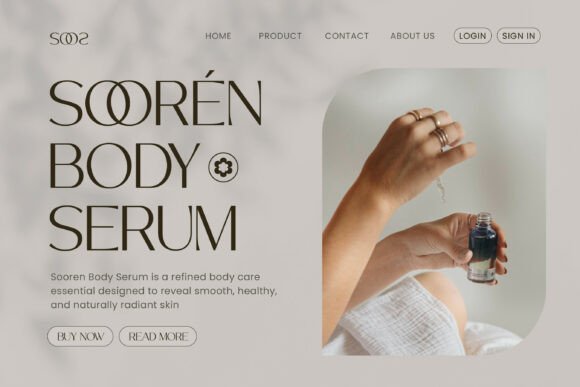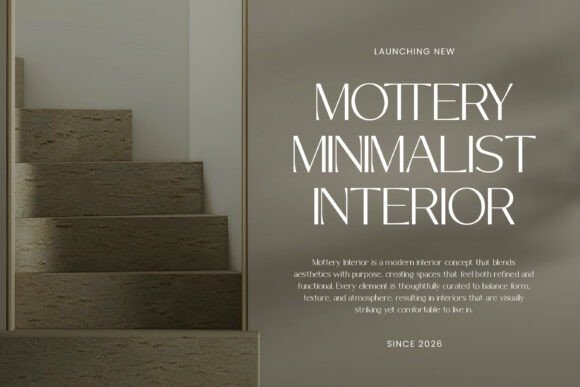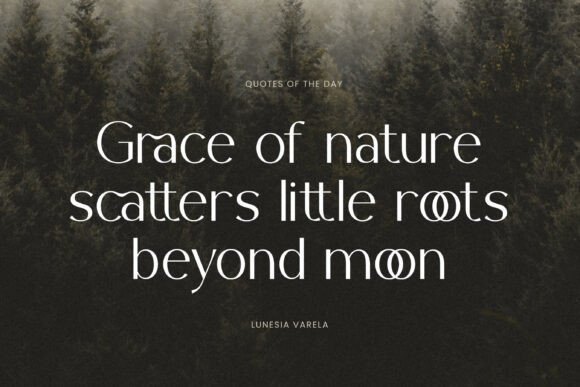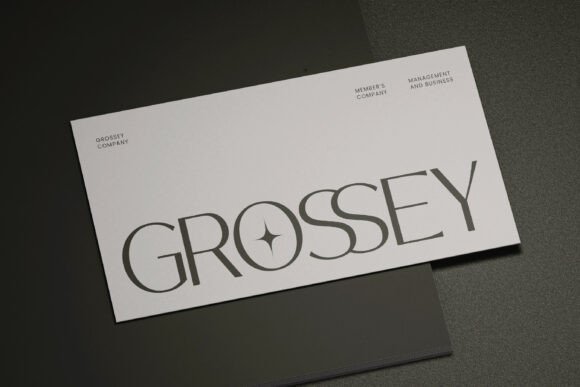
Vosage Font
Vosage is a modern luxury sans serif typeface designed to deliver a clean, refined, and high-end visual experience. With its sleek lines, balanced proportions, and minimalist elegance, Vosage creates a sophisticated look that feels both contemporary and timeless. Its understated style allows your content to shine while maintaining a strong and polished identity. Whether for branding, editorial design, or premium packaging, Vosage brings a sense of quiet luxury and modern professionalism.